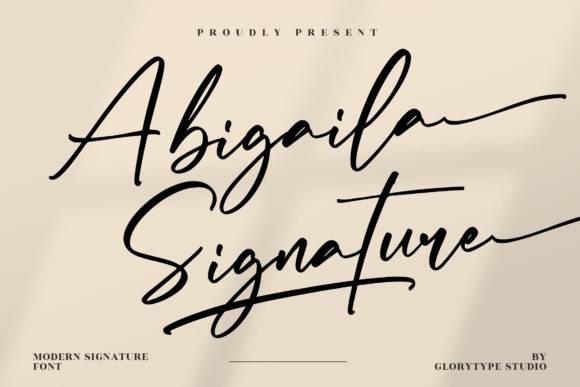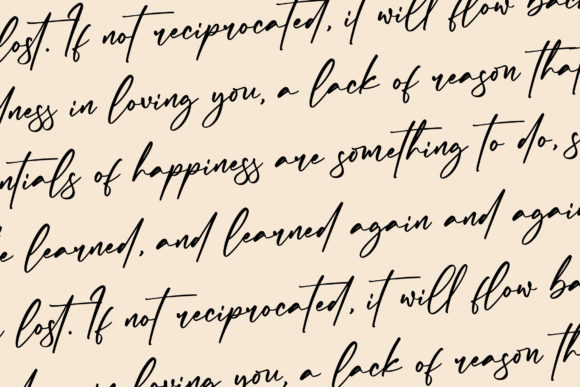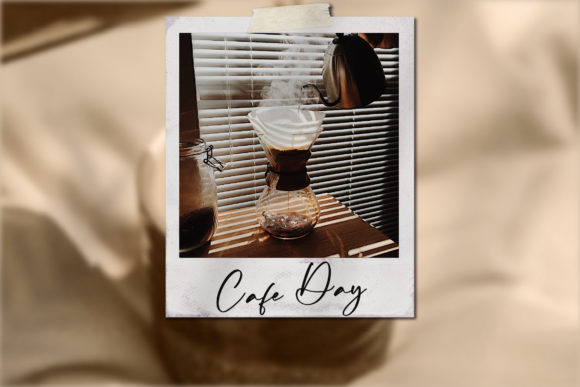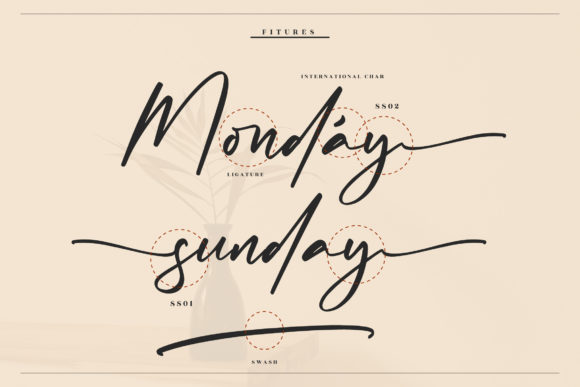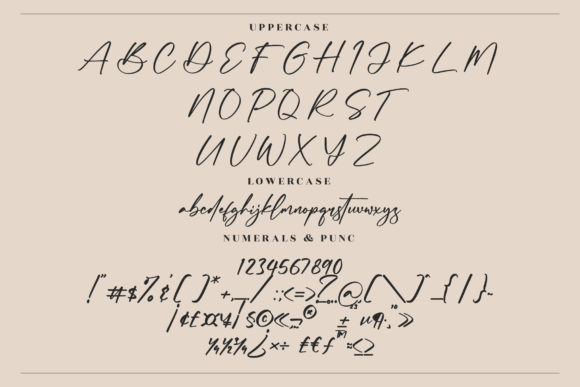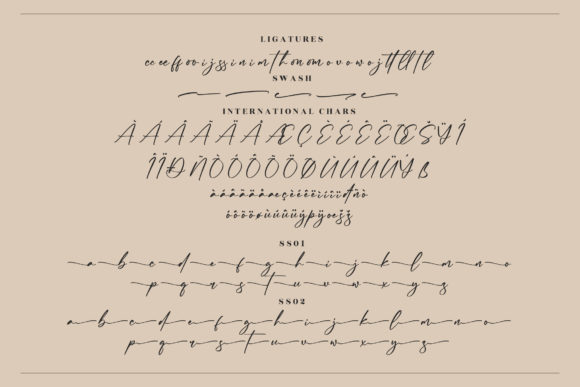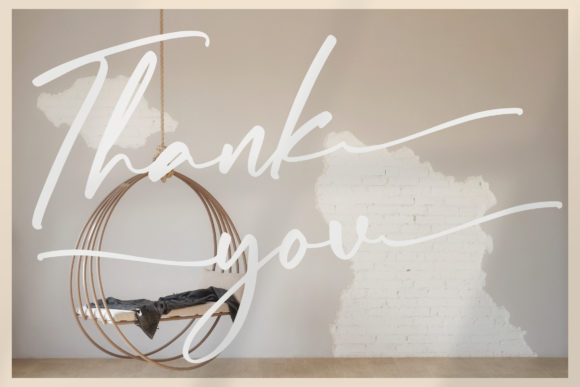
Abigaila Signature Font
About Abigaila Signature Font
Abigaila Signature is an exquisite handwritten font, masterfully designed to become a true favorite. It maintains its classy calligraphic influences while feeling contemporary and fresh. This font is PUA encoded which means you can access all glyphs and swashes with ease!